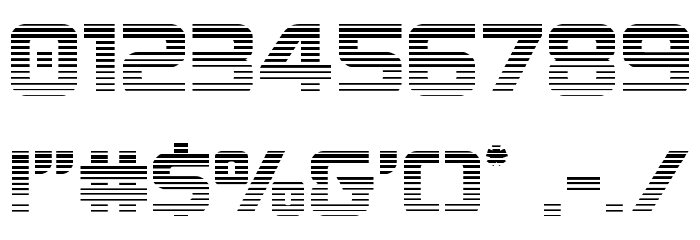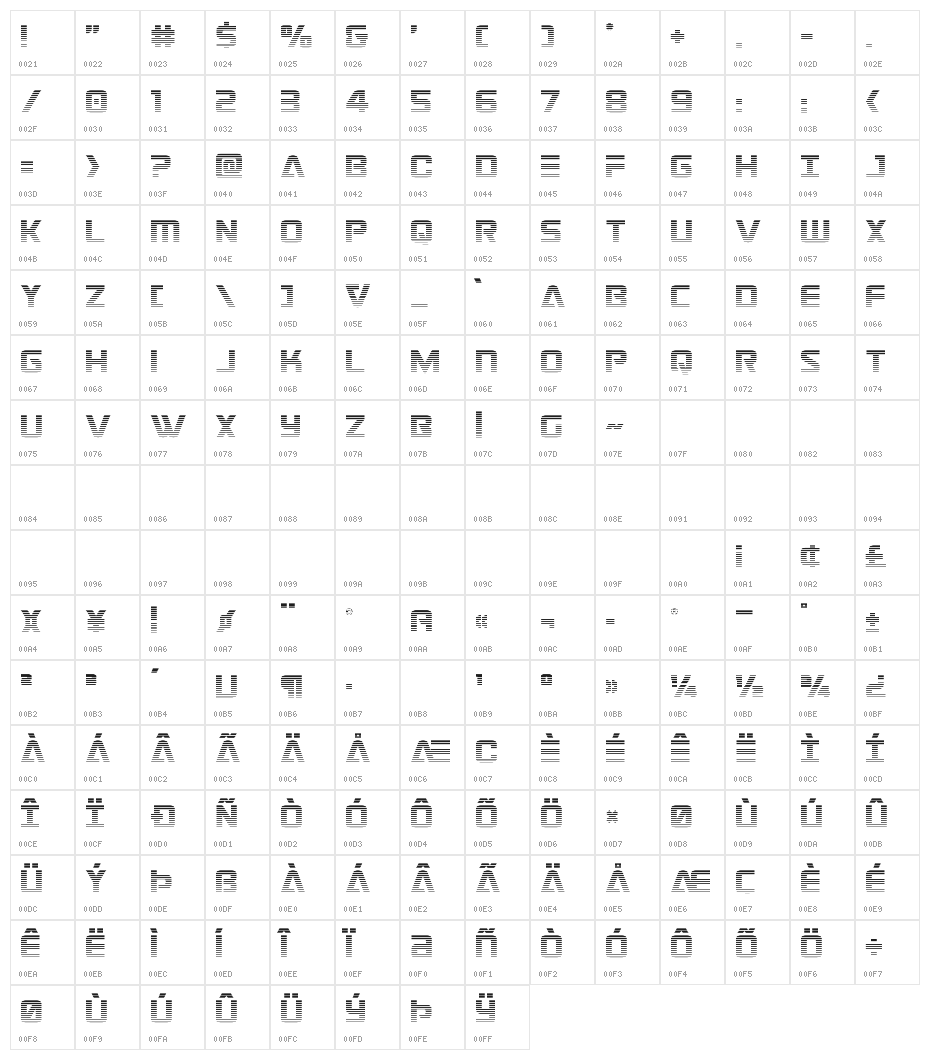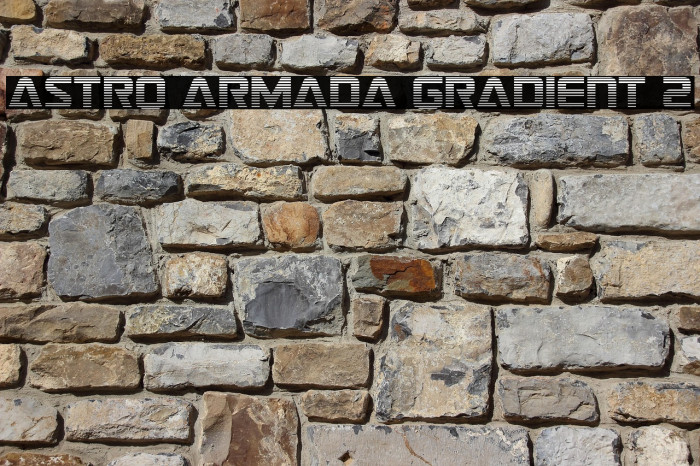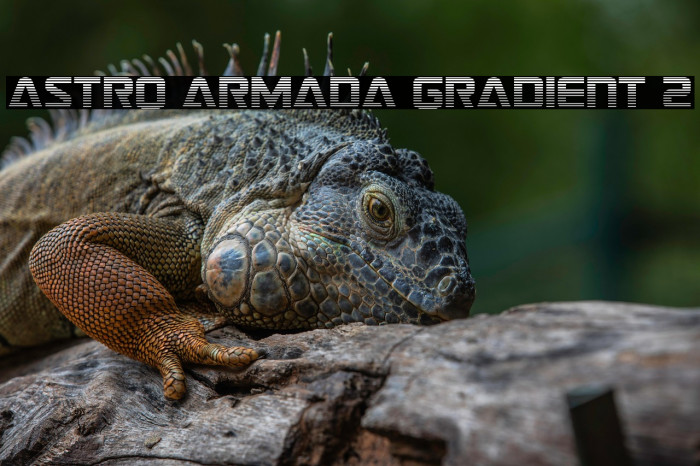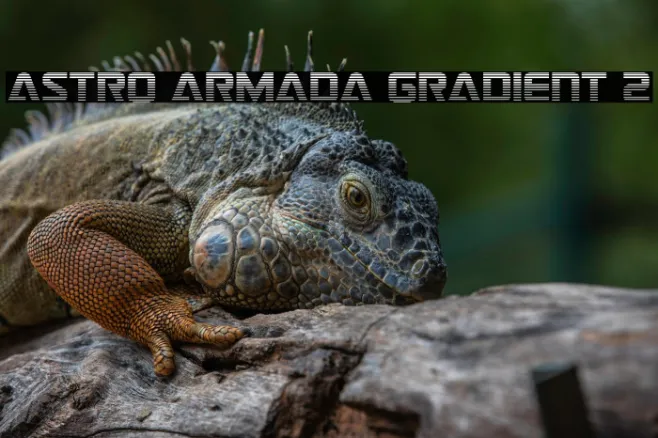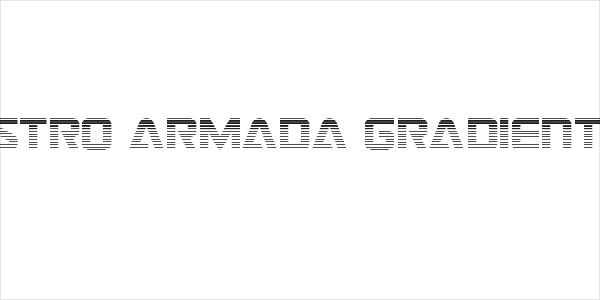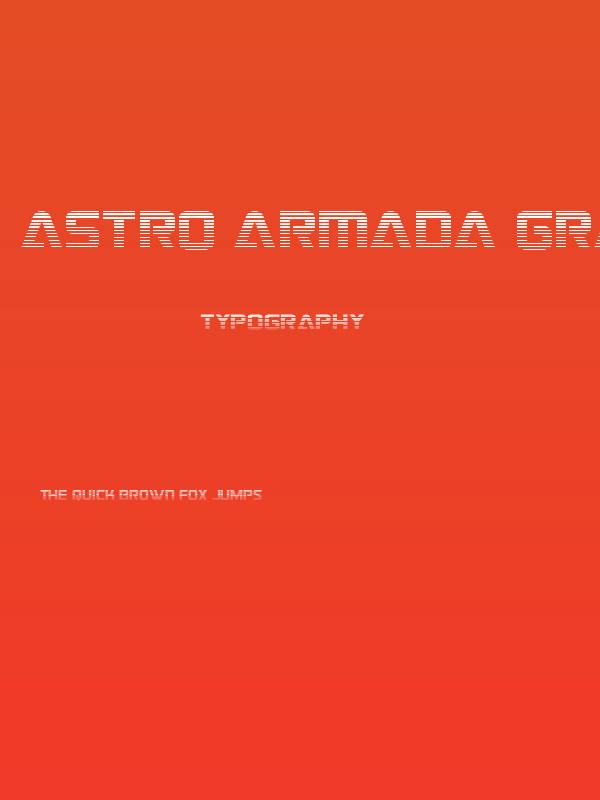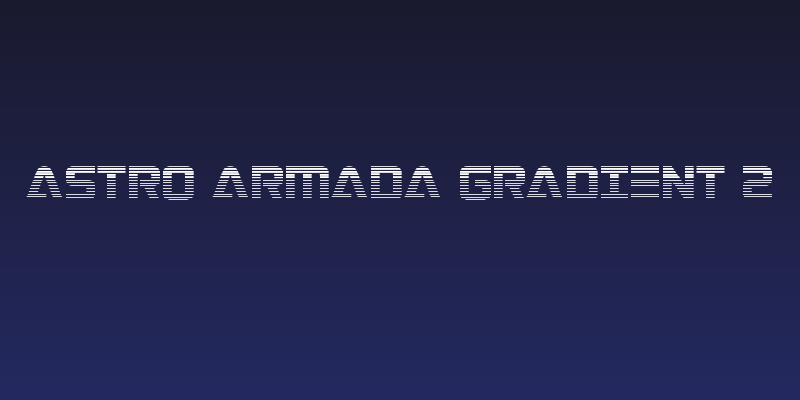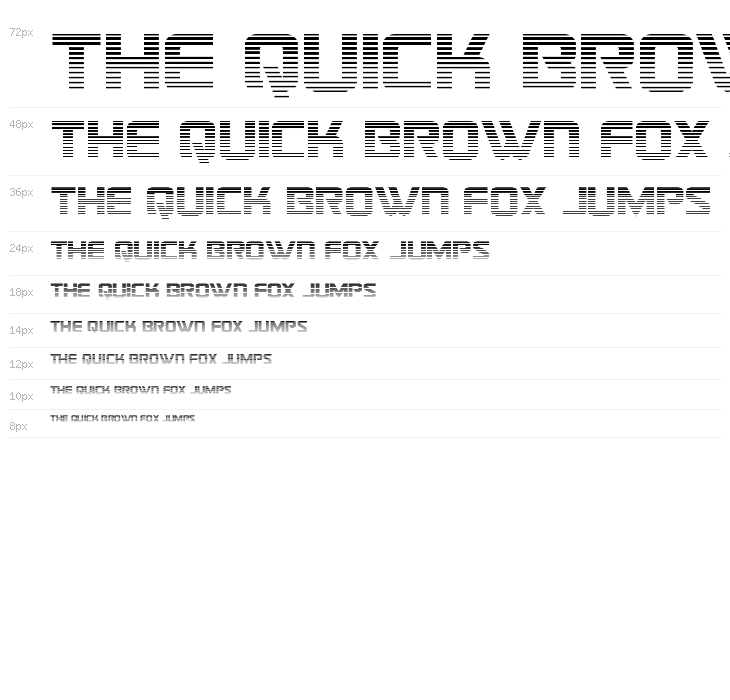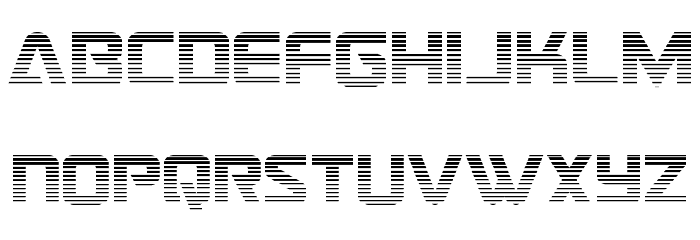
Astro Armada Gradient 2 Font
Astro Armada Gradient 2 Description
This font features a futuristic and dynamic design characterized by horizontal lines that create a gradient effect across each character. The letters are bold and geometric, with sharp angles and a sense of movement. The design is consistent across uppercase and lowercase letters, as well as numbers and special characters, maintaining a cohesive look. The unique line pattern gives it a high-tech, digital appearance, making it stand out in any design project.